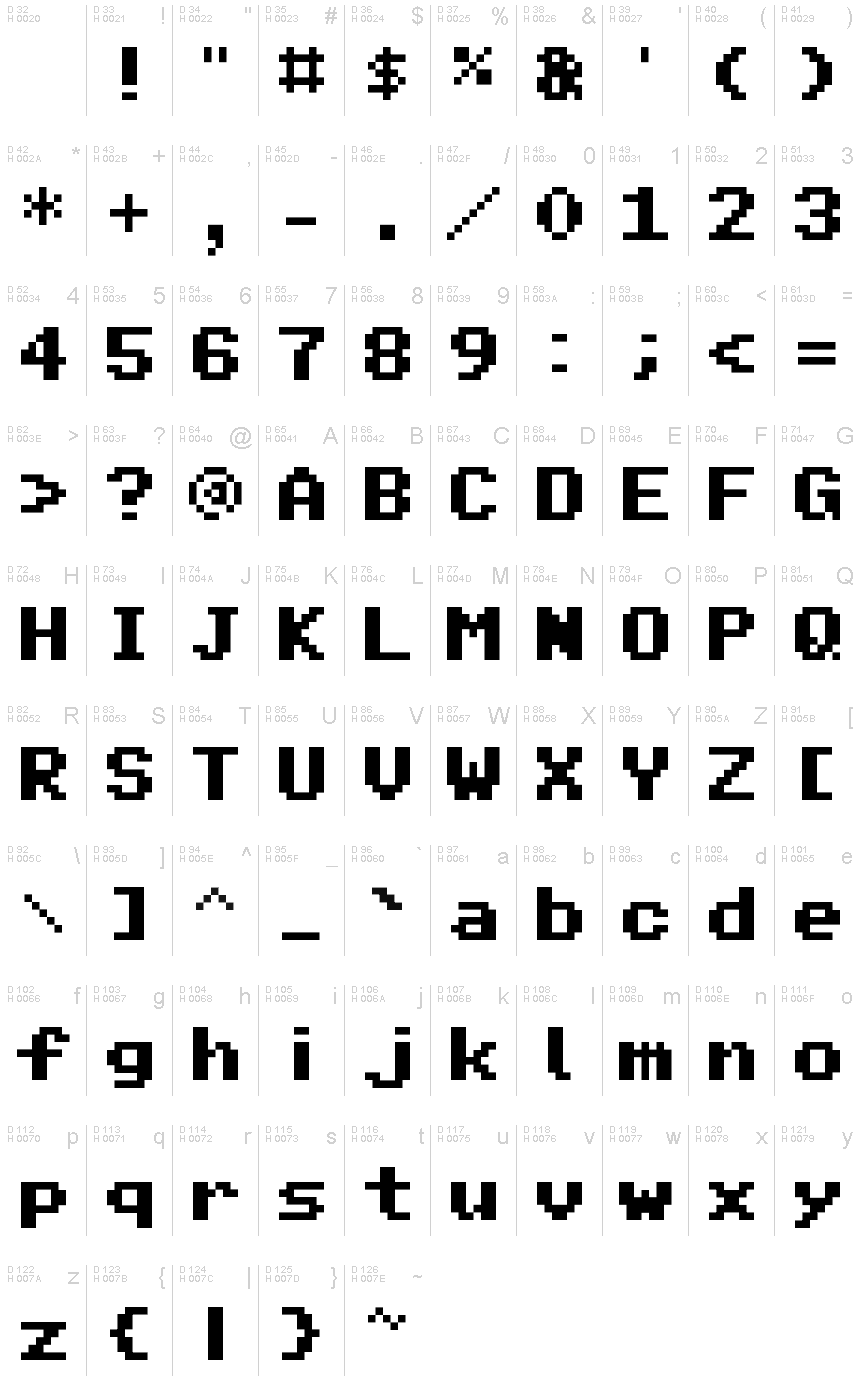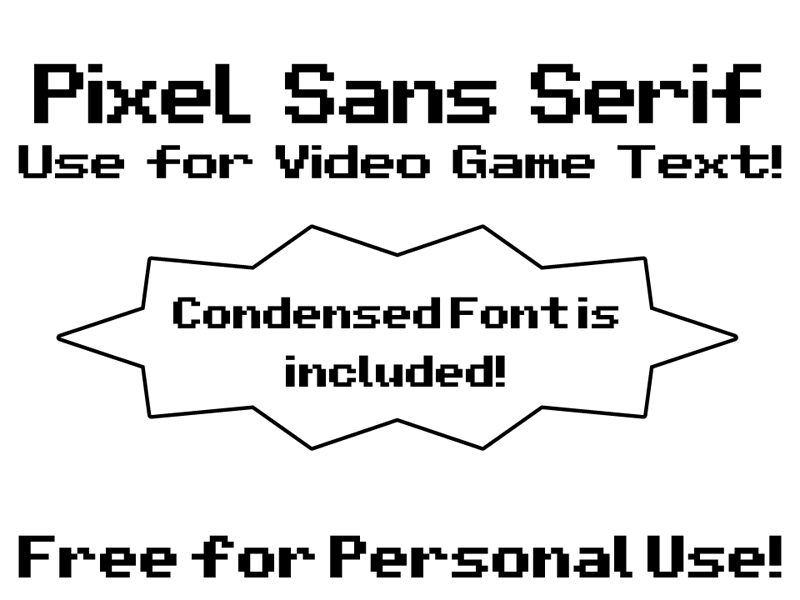
Pixel Sans Serif Condensed Regular
It is the new pixel font which is very regular and cool. Suitable for use in video game arcade, retro and computer for DOS games. Made using Fontstruct.
Designer description: The condensed Merio pixel font is one of similar to the NES games and some Sega Genesis games.